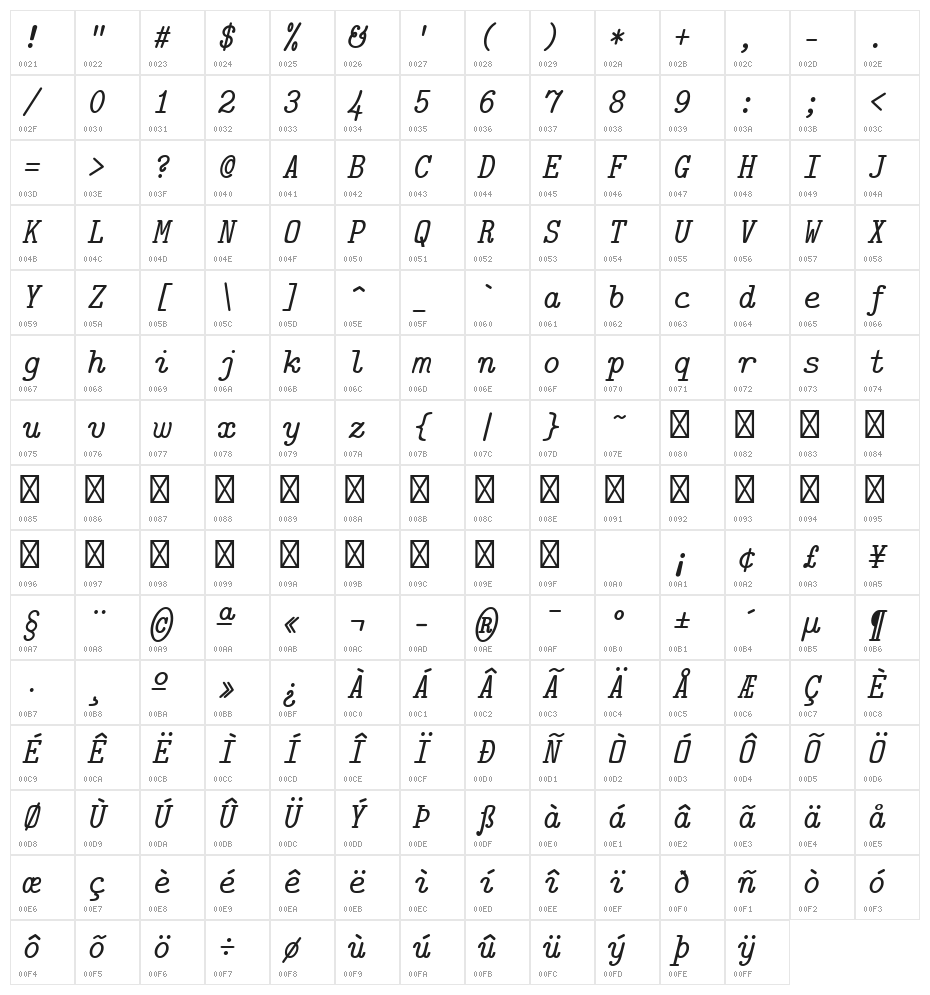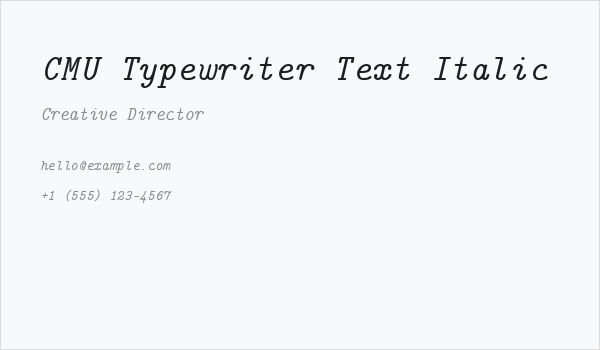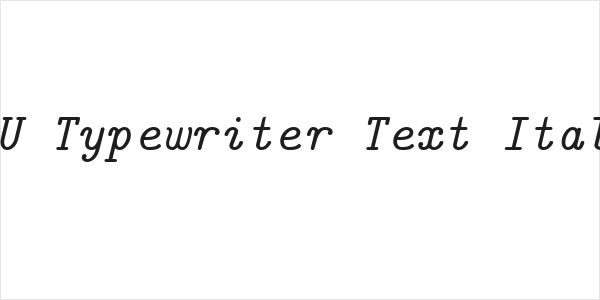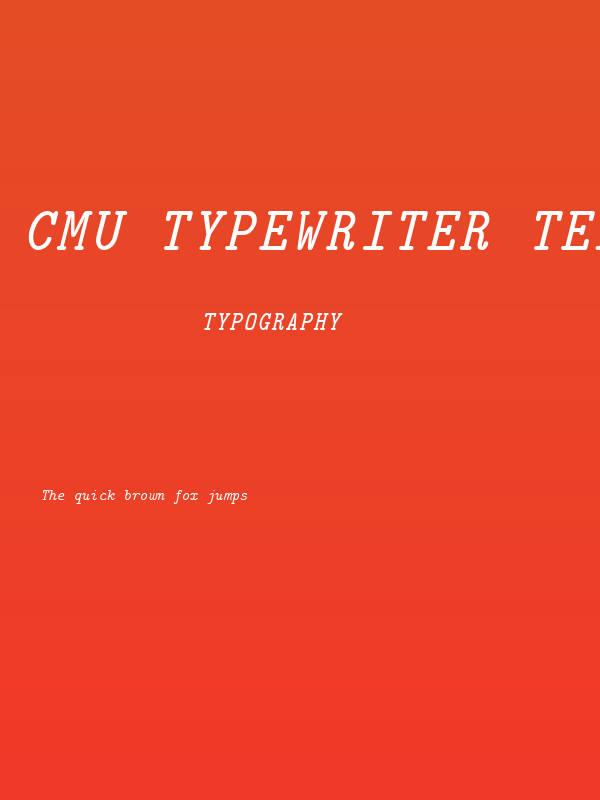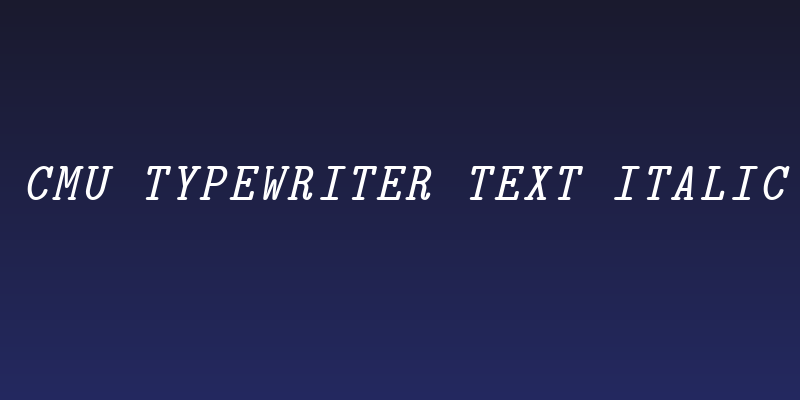
CMU Typewriter Text Italic Font
CMU Typewriter Text Italic Description
This font features a classic typewriter style with a distinct italic slant, giving it a unique and vintage feel. The characters are monospaced, providing a uniform appearance that is characteristic of traditional typewriter fonts. The strokes are consistent in thickness, offering a medium contrast that enhances readability while maintaining a retro aesthetic. The font includes a full set of uppercase and lowercase letters, numerals, and a variety of special characters, making it versatile for different uses. Its italic nature adds a touch of elegance and dynamism, setting it apart from standard typewriter fonts.
| Proposed Projects | Ideal for projects that require a vintage or retro feel, such as typewriter-themed designs, retro posters, or creative writing projects. |